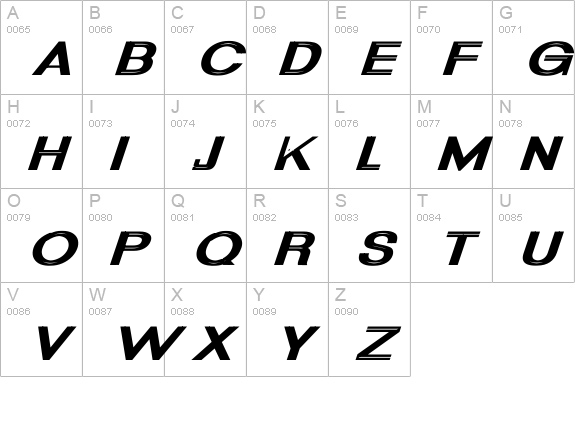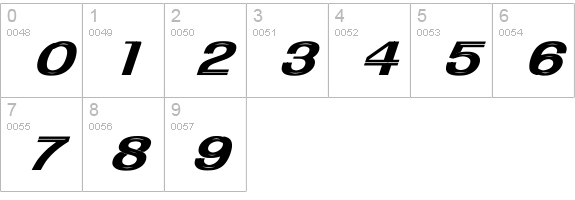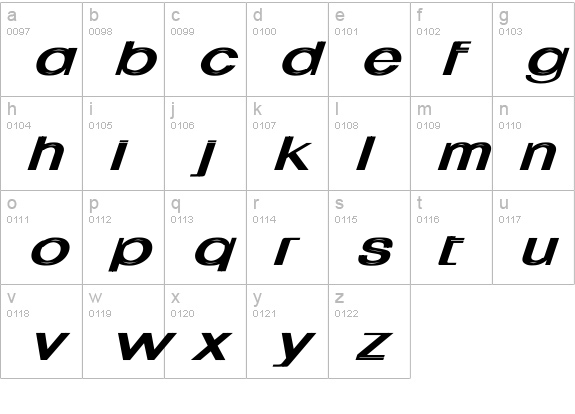
Uptight Wd Bold Italic is a strong, high-contrast, italic variant in the Uptight typeface family \xE2\x80\x94 well suited to headlines, attention-grabbing titles, and strong calls-to-action.
Uptight Wd Bold Italic font is a stunning and eye-catching typeface that exudes a sense of sophistication and elegance. Its bold and italic design adds a touch of modernity and uniqueness to any project or design. This font is perfect for creating striking headlines, captivating logos, or attention-grabbing typography on various print and digital platforms. Its distinct and stylish letterforms make it stand out from the crowd, making a lasting impression on anyone who encounters it. Uptight Wd Bold Italic font is versatile and adaptable, making it suitable for a wide range of applications. Whether you are designing a website, crafting marketing materials, or working on a personal project, this font will effortlessly elevate your designs to new heights. One of the best things about Uptight Wd Bold Italic font is that it is freely available to download at FontsMarket.com. This means that you can access and use this incredible font without any cost, making it an invaluable resource for designers, creatives, and anyone in need of a high-quality font. With its seamless readability and exceptional legibility, Uptight Wd Bold Italic font ensures that your message is delivered with utmost clarity and impact. Its clean and sharp lines, combined with its bold and italic styling, create a visually stunning composition that captures attention and engages viewers. Incorporating Uptight Wd Bold Italic font into your design projects will instantly add a touch of sophistication and professionalism. Its unique and bold character will make your designs stand out and leave a lasting impression on your audience. So why wait? Download Uptight Wd Bold Italic font for free at FontsMarket.com today and unleash your creativity with this remarkable typeface. Elevate your designs, captivate your audience, and make a bold statement with Uptight Wd Bold Italic font.